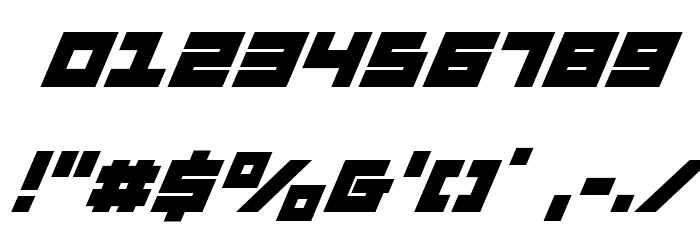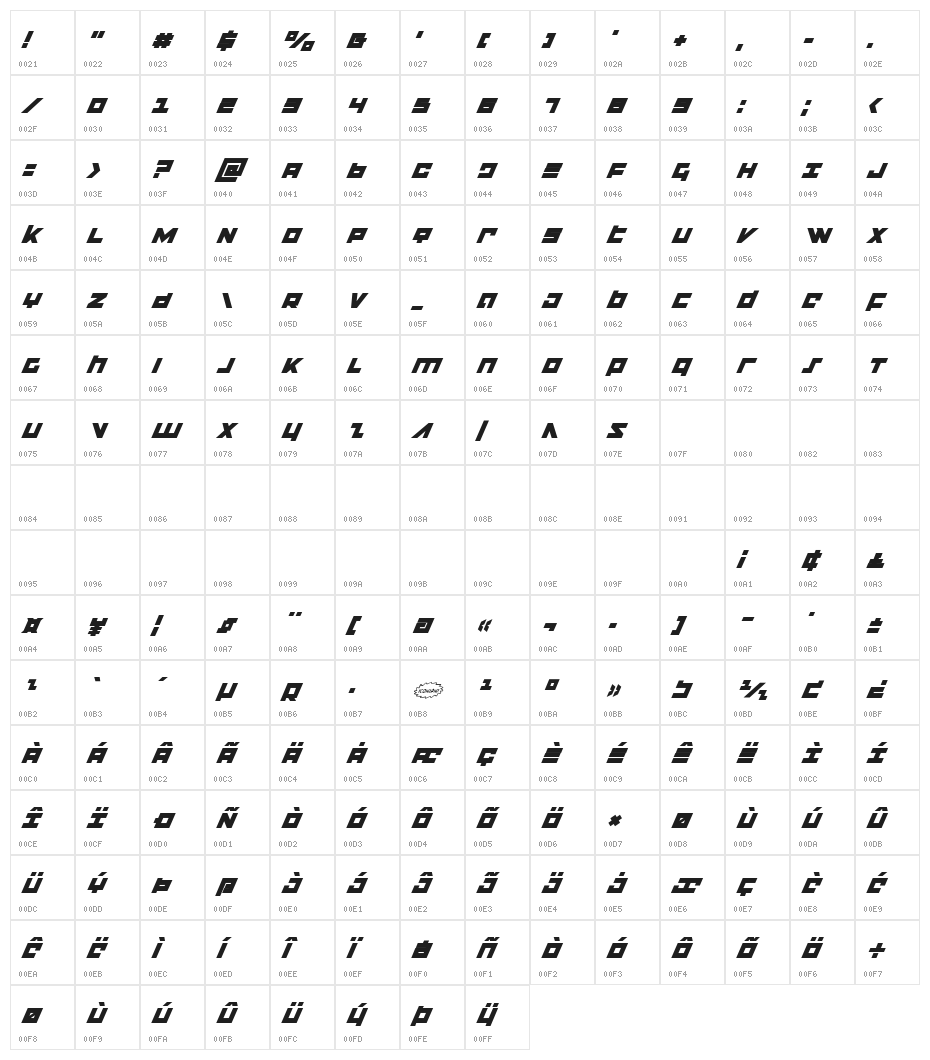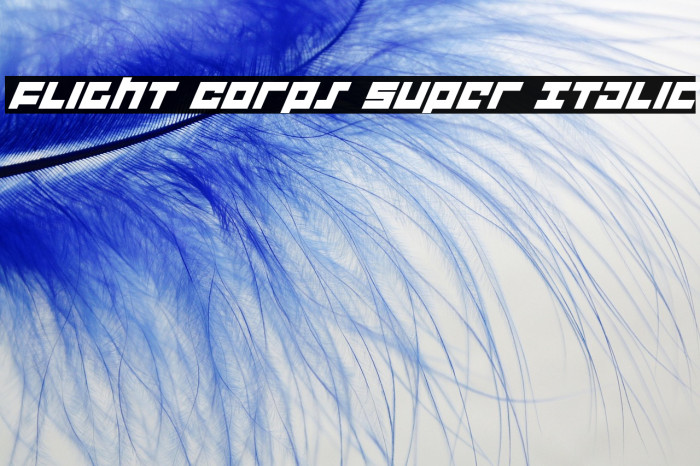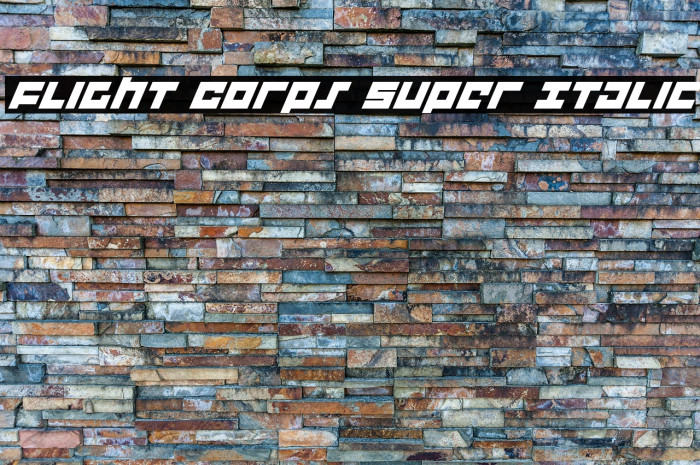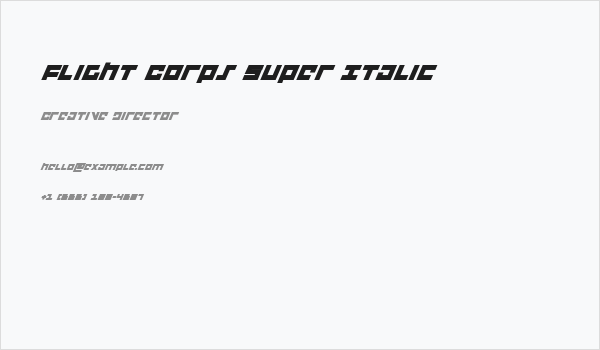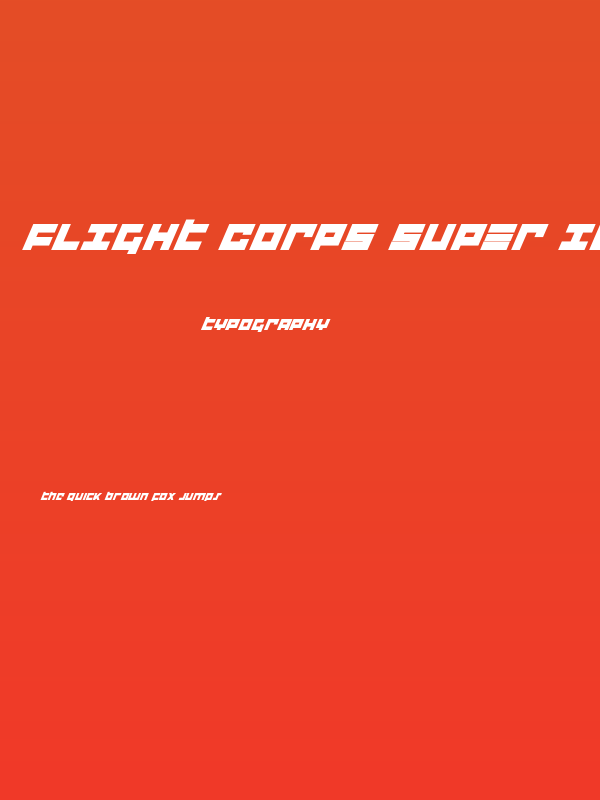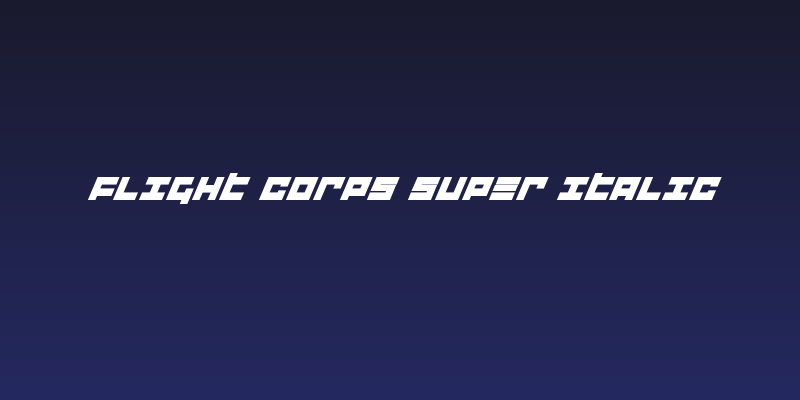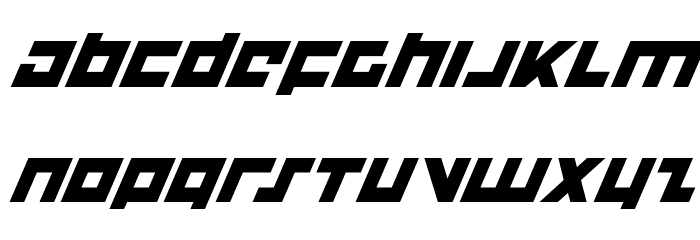
Flight Corps Super Italic Font
Flight Corps Super Italic Description
This font features a bold, italicized style with a futuristic and dynamic appearance. The characters are sharply angled and have a distinct geometric structure, giving them a sense of motion and speed. The uppercase and lowercase letters maintain a consistent slant, enhancing the italic effect. The numbers and special characters follow the same design principles, ensuring uniformity across the font. The boldness of the strokes adds to the font's striking presence, making it suitable for attention-grabbing designs.
| Proposed Projects | Ideal for projects that require a modern, high-tech look, such as video game titles, sci-fi movie posters, or technology branding. |